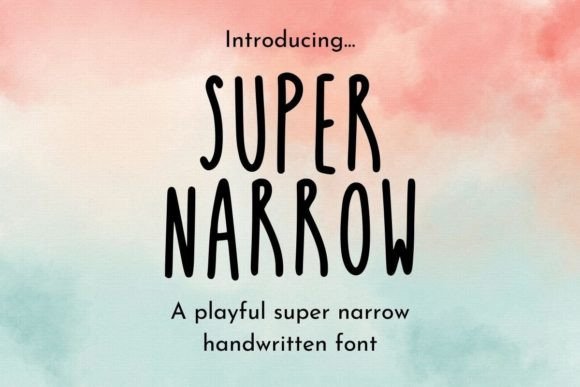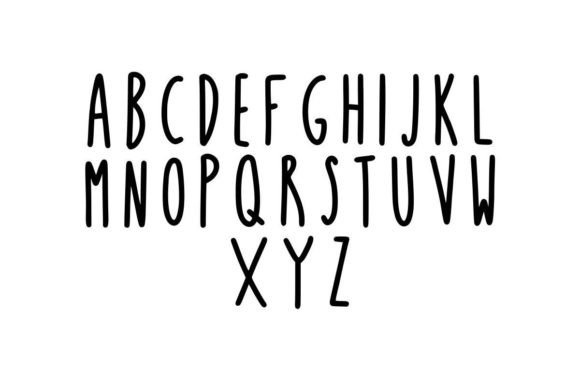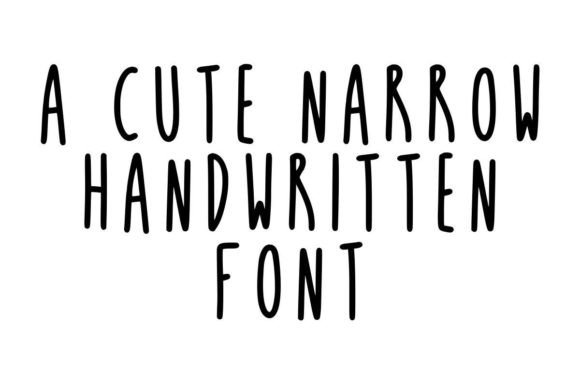
Super Narrow Font
Introducing a super narrow and neat handwriting font, meticulously crafted to enhance the visual appeal of your website, digital planner, or merchandise. This versatile typeface is designed to look fantastic across various mediums, offering a sleek and tidy aesthetic. Whether you’re enhancing your online presence, organizing your digital planner, or creating merchandise, this font provides a stylish and contemporary touch that you’re sure to love.
The unique charm of this handwriting font stems from its narrow design, adding a distinctive and modern flair to your projects. Its neat and tidy appearance makes it suitable for a range of applications, ensuring readability while maintaining a sleek aesthetic. Whether used for headers, body text, or creative accents, this font adapts seamlessly to your design needs.
It’s worth noting that this font was meticulously crafted by hand, ensuring a personalized and authentic touch. After the initial creation, the characters were scanned and transformed into a font, preserving the organic quality of the handcrafted design. This process not only adds a unique charm but also reflects the dedication to creating a font that stands out with its narrow and neat handwriting style.